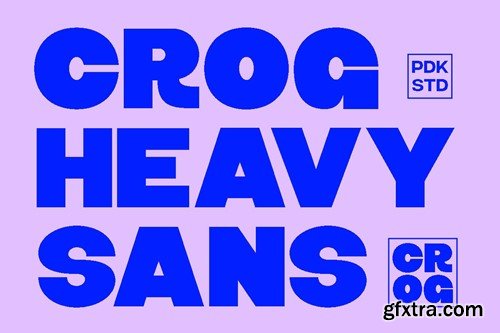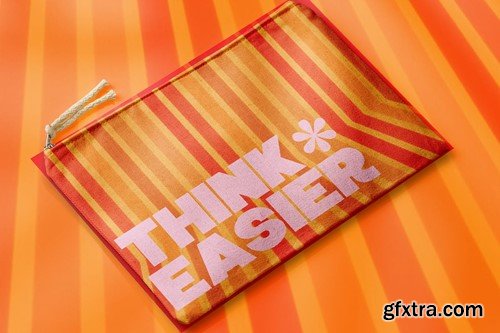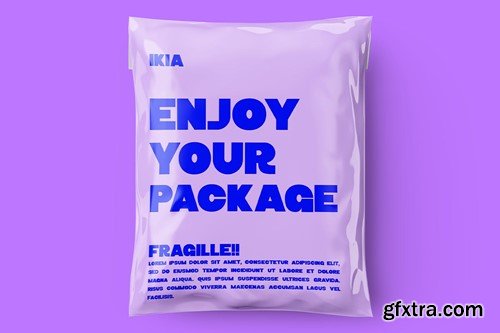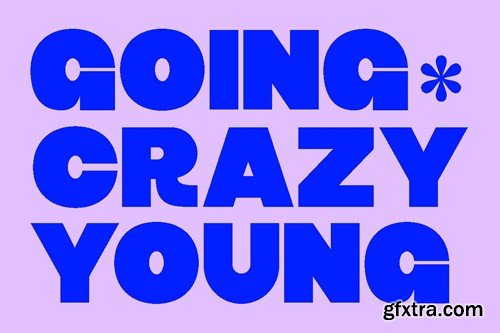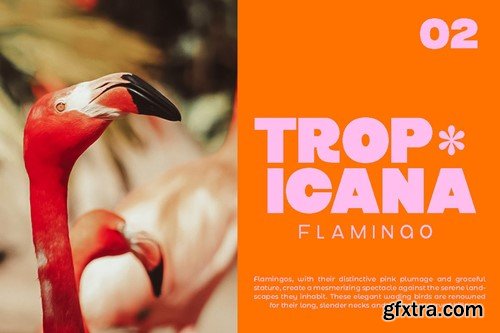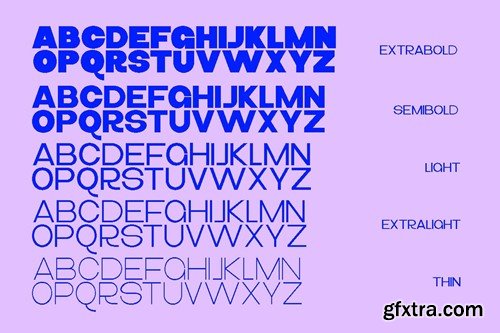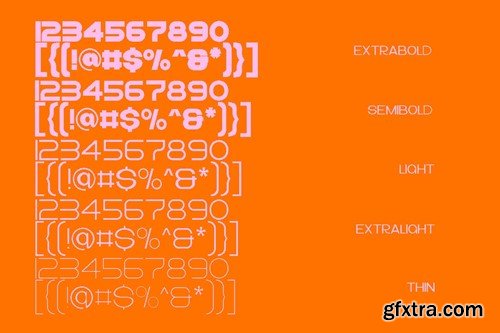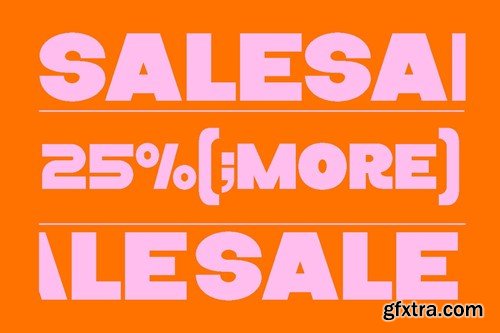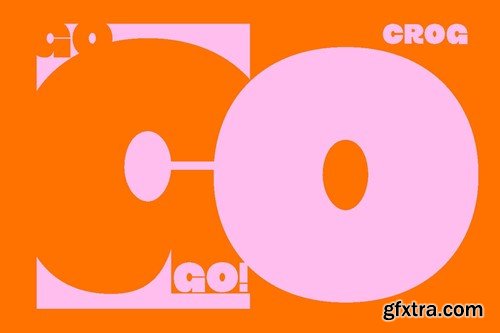
Crog - 现代logo字体 2E2SGTU
Crog - Modern Logo Font 2E2SGTU
Crog - Modern Logo Font
Crog is a big heavy sans that available in 9 family variations (Thin, Extra Light, Light, Regular, Medium, Semi Bold, Bold, ExtraBold, Black)
Crog is a chunky, funky, loud, and cutely proud kinda font. Crog is playful, and bold while not being shouty with its soft corner. Its large real estate means it's perfect for an image-fill effect while still being legible.
It's the kinda font that looks like you wanna give it a big hug!
• 9 Variable Font (Thin, Extra Light, Light, Regular, Medium, Semi Bold, Bold, ExtraBold, Black)